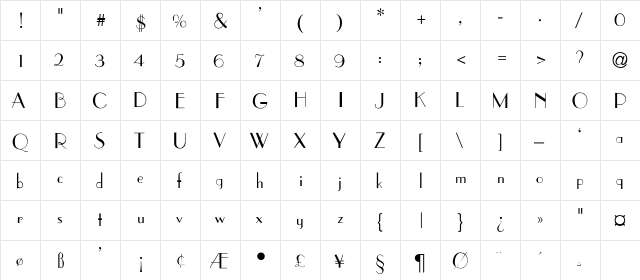
Avon-Light Regular
Design Context for Avon-Light Typeface
Avon-Light is a composed and adaptable typeface that performs quietly and consistently across a wide range of design contexts. Its slender proportions lend an understated elegance to any composition.